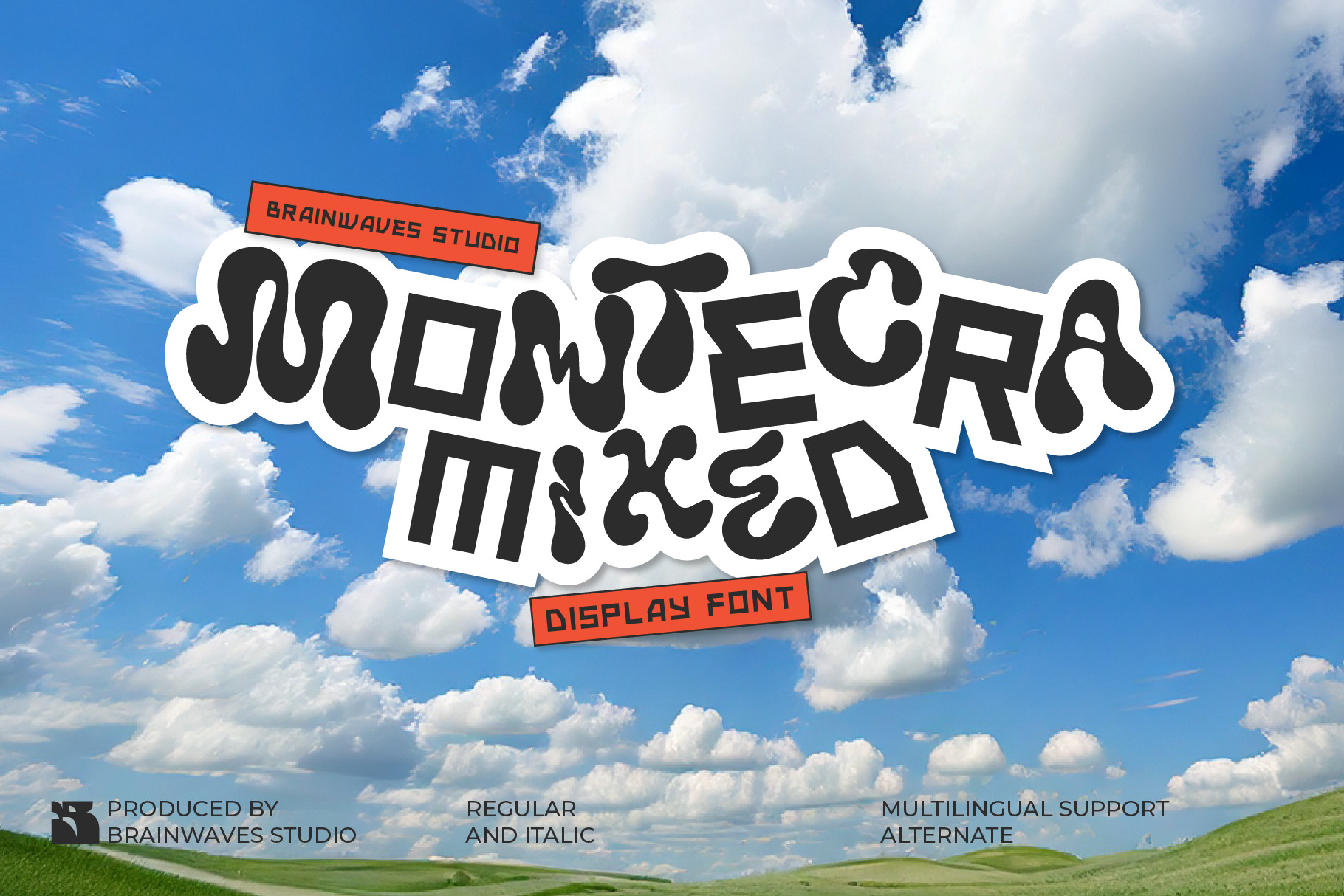
Montecra - Mixed Display Font
Unleash your creativity with Montecra, the truly unique mixed display font that offers two distinct styles in one! This dynamic typeface blends fluid, groovy shapes with sharp, modern geometric forms, giving your designs unparalleled versatility and impact. Imagine having the power to choose between a playful, organic vibe and a clean, structured look, all within the same font family.
Montecra is more than just a font; it's a statement. Its contrasting letterforms ensure your headlines and logos grab immediate attention, making your brand truly unforgettable. Whether you're aiming for a nostalgic retro feel or a contemporary urban edge, Montecra adapts effortlessly. Perfect for eye-catching social media posts, distinctive product packaging, or bold apparel designs, this font empowers you to craft designs that are both captivating and on-trend.
Key Features You'll Love:
- Two Unique Styles: Combine groovy organic and sleek geometric forms.
- Bold & Playful Design: Ensures high visibility and character.
- Multilingual Support: Broadens your global design reach.
- Regular & Italic: Added versatility for various design needs.
Suitable For
- Social media graphics & engaging posts
- Brand logos & distinct packaging design
- Music festival posters & event branding
- Apparel & streetwear designs
- Food & beverage labels (craft beer, snacks)
- YouTube thumbnails & channel art
- Creative studio branding